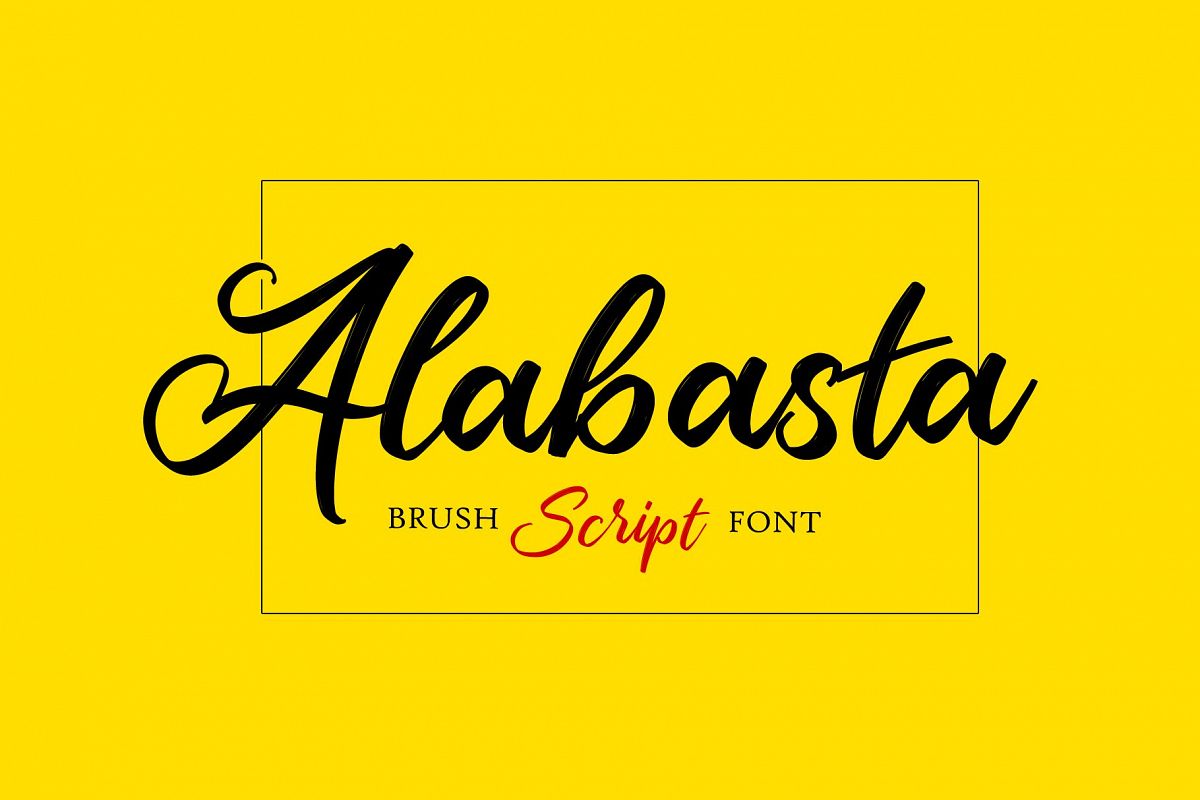
Alabasta Script
Introducing Alabasta script font which has a elegant hand lettering brush style. So it looks natural like a handmade. This font is best used for your design project that has the concept of fun, girly, romantic and elegant. Can also be applied to the design of a logotype, header website, wedding logo, romantic design, make some lettering a quote, t-shirt design etc.Also supported PUA encoded. Simply copy and paste the alternate characters using the Character Map (Windows), Font Book (Mac) or a software program such as PopChar (for Windows and Mac).This font works best with open-type friendly applications,How to get access alternate glyphs from open type fonts : http://adobe.ly/1m1fn4YAlabasta family font has two font styles are similar but a different character, namely is Alabasta Yt One and Alabasta Yt Two.Features :
• Character Set A-Z
• Numerals & Punctuations (OpenType Standard)
• Accents (Multilingual characters)
• Apercase Alternates
• SS01